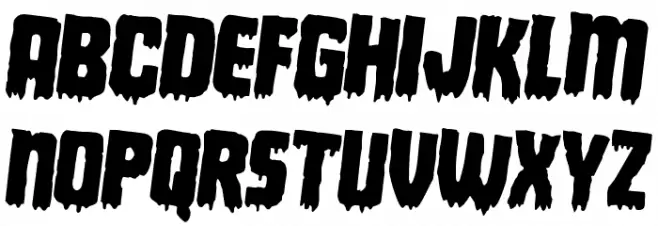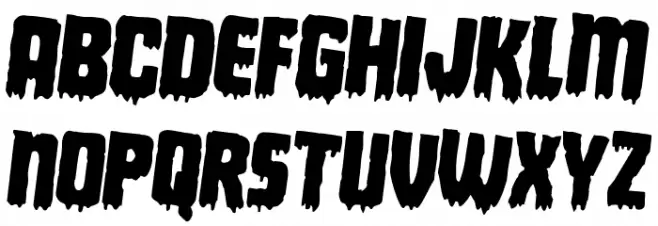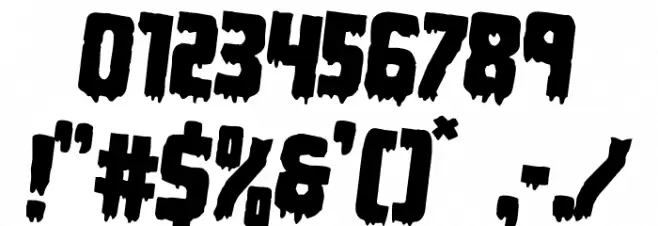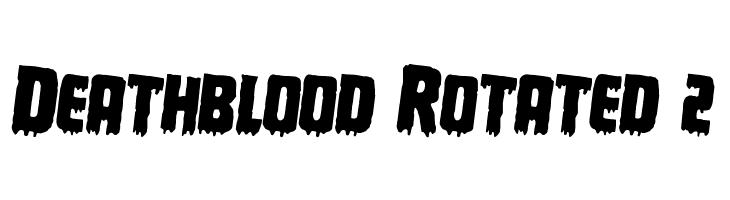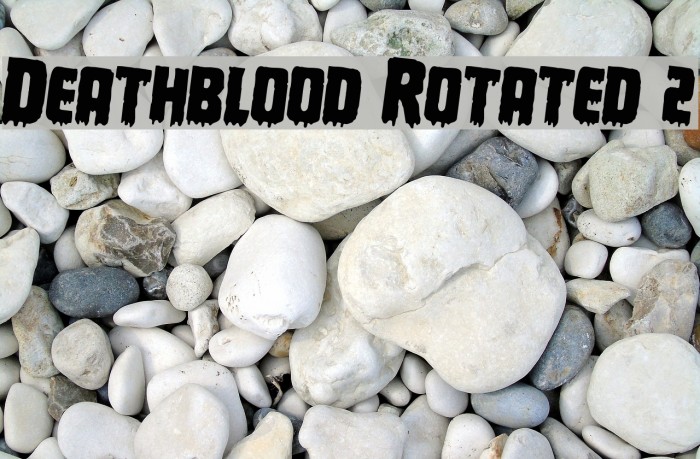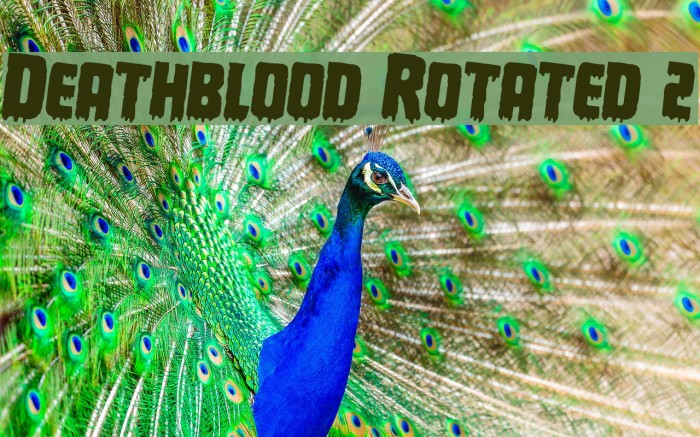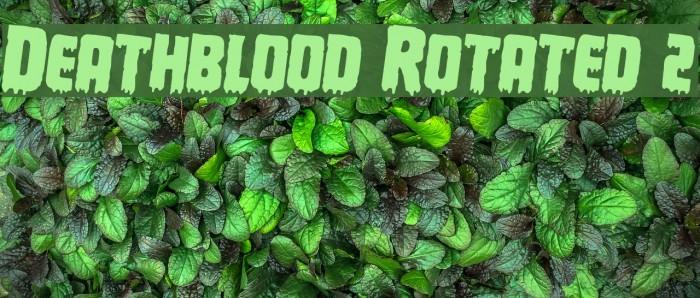
Deathblood Rotated 2
This font features a bold and dramatic style with a dripping effect that gives it a horror-themed appearance. The characters are thick and heavy, with irregular edges that mimic the look of melting or dripping liquid. This creates a sense of movement and unease, making it ideal for designs that aim to evoke fear or suspense. The uppercase and lowercase letters maintain a consistent style, ensuring readability while still delivering a strong visual impact. Numbers and special characters are designed with the same dripping effect, providing a cohesive look across all elements.
A bold, horror-themed font with a dripping effect for dramatic impact.
- Proposed Projects: Ideal for Halloween posters, horror movie titles, haunted house flyers, and spooky event invitations.
- Overall Style: Decorative